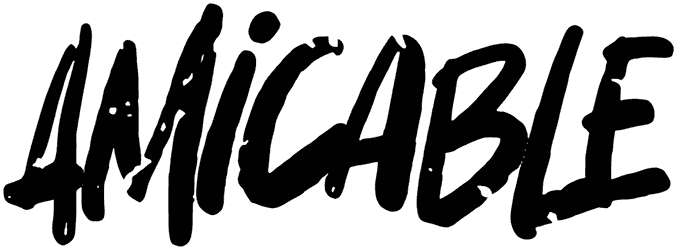
If you think that your content lacks creativity and you don’t mind trying something not common, then we suggest Garland. This is a brush font and with its unique design, it would be a perfect choice for flyers, invitations, branding, packaging, and poster designs.
This beach script font comes with an extraordinary collection of characters containing both the uppercase and lowercase of the alphabet, the numbers, and the punctuation marks.